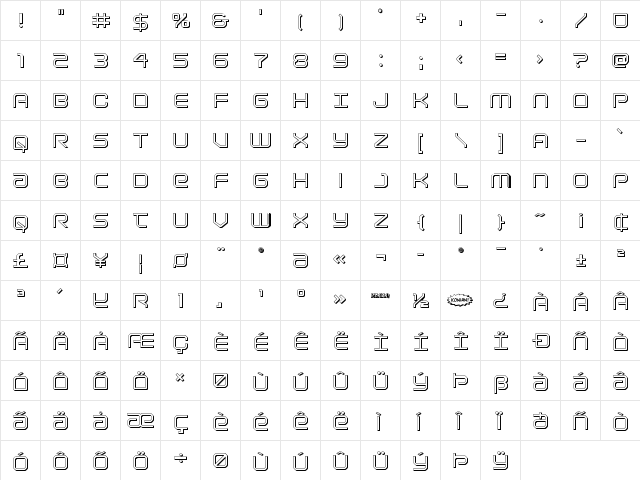
Light Brigade 3D Regular
Design Context for Light Brigade 3D Typeface
Light Brigade 3D is a composed and adaptable typeface that performs quietly and consistently across a wide range of design contexts. The delicate stroke weight brings airiness and refinement to layouts.
Pro Tip: Use Light Brigade 3D in both headline and body roles to test its range before committing to a single application.